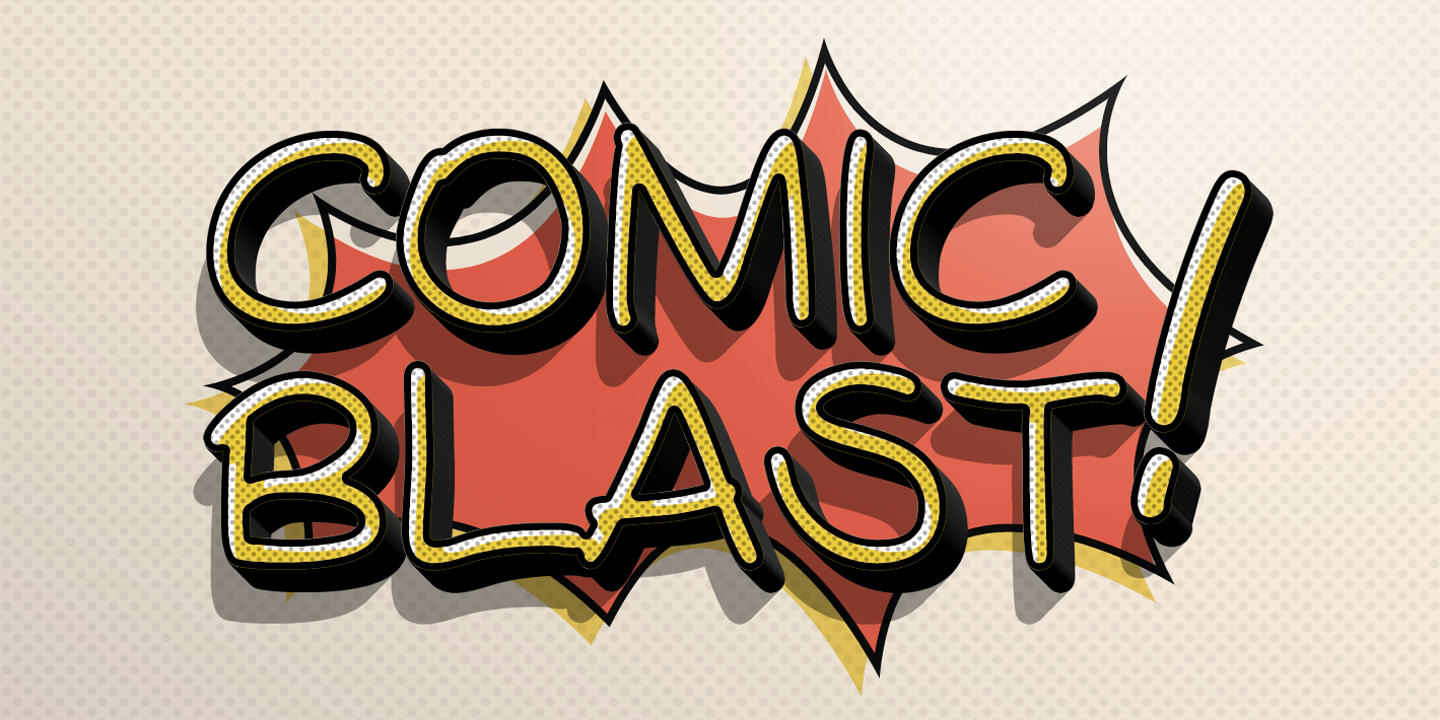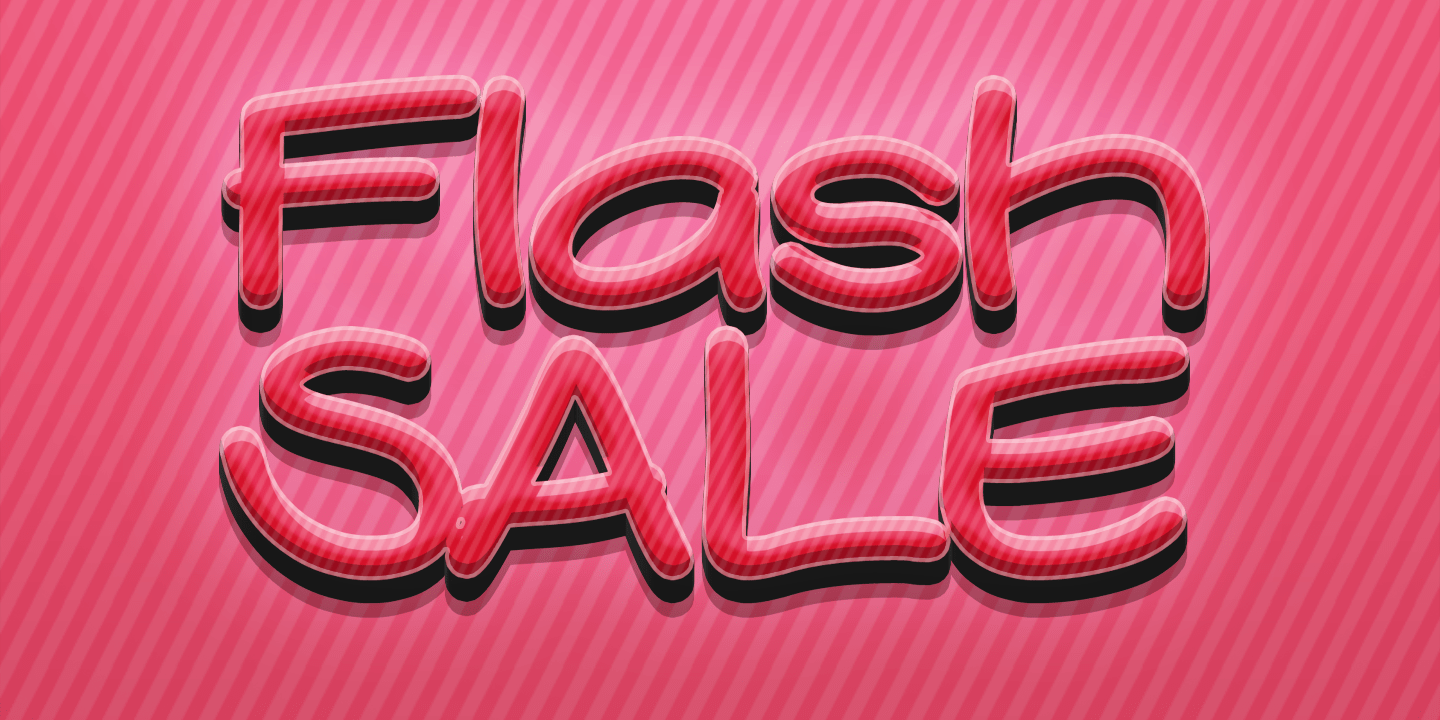
About Comicblast
Comicblast is a comic and hand-drawn font family with a universal and timeless design. The font is inspired by the work of acclaimed Belgian comic artists. The font is unique and helps you to complete your designs with a custom and handmade look. This…